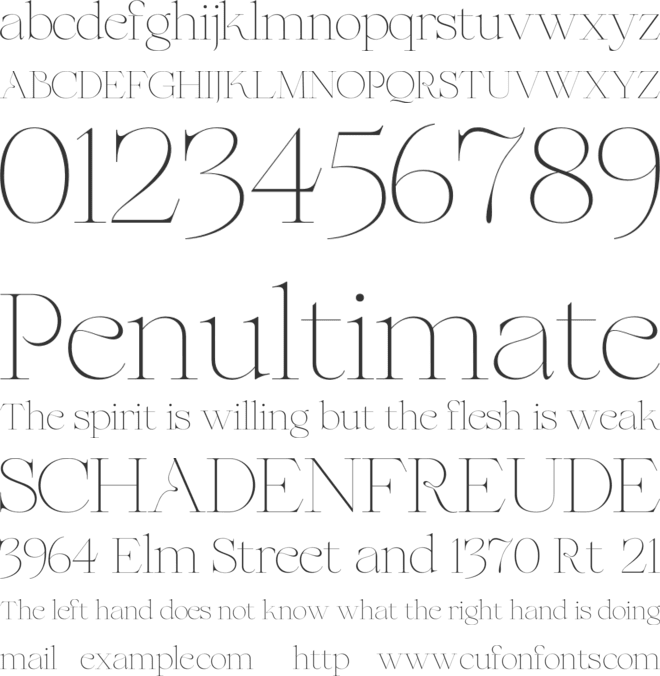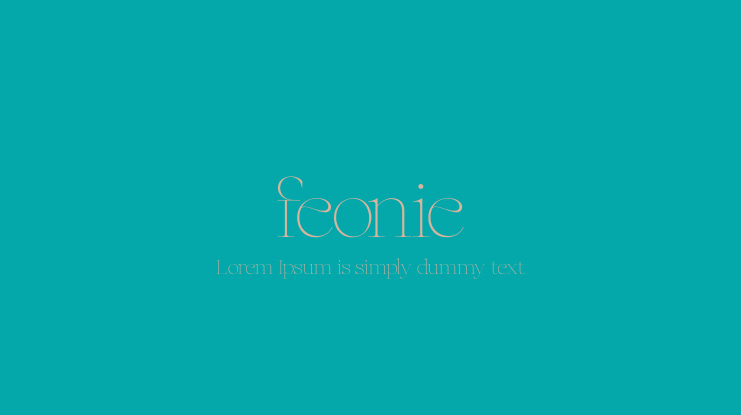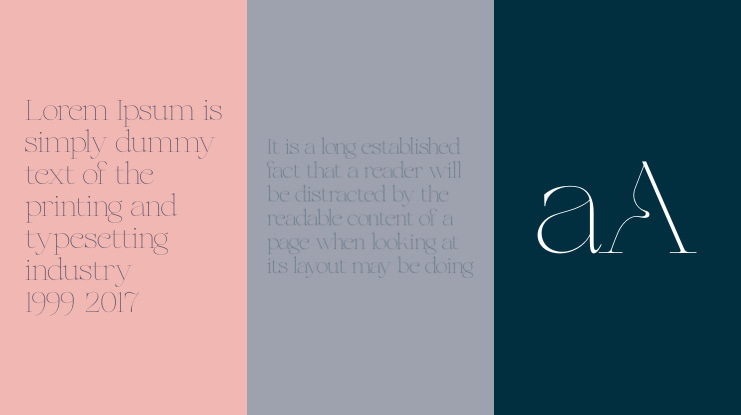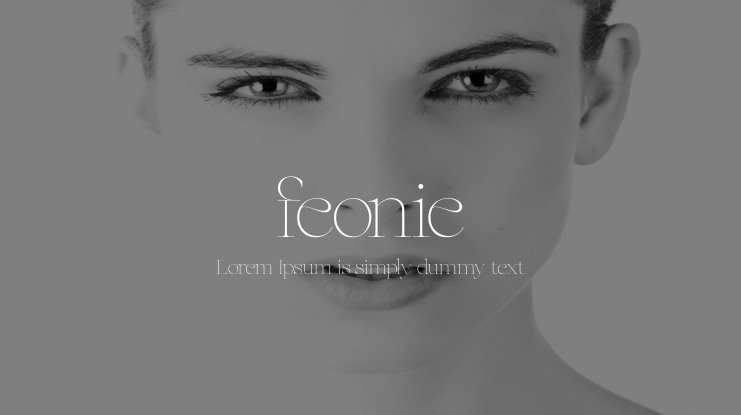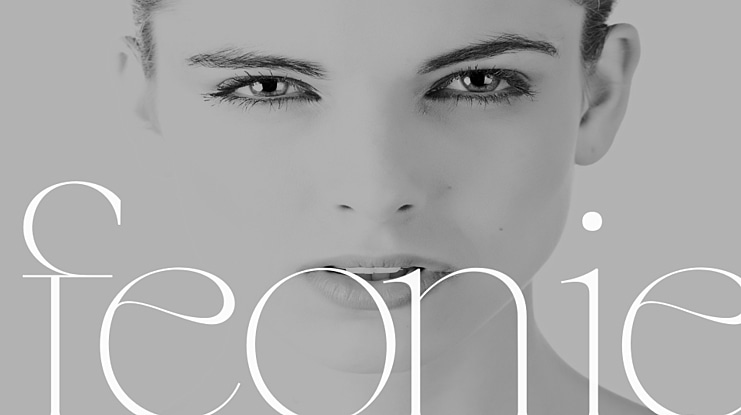
feonie Font Family
Feonie is a classic and slightly curved serif typeface. This Serif comes in 2 styles, regular and italic versions. They are classy and the perfect match combination.
Feonie is soft curves mixed with a high-contrast font perfect for feminine logo marks, fashion mastheads & editorial design. It's
comes with a multilingual support also.